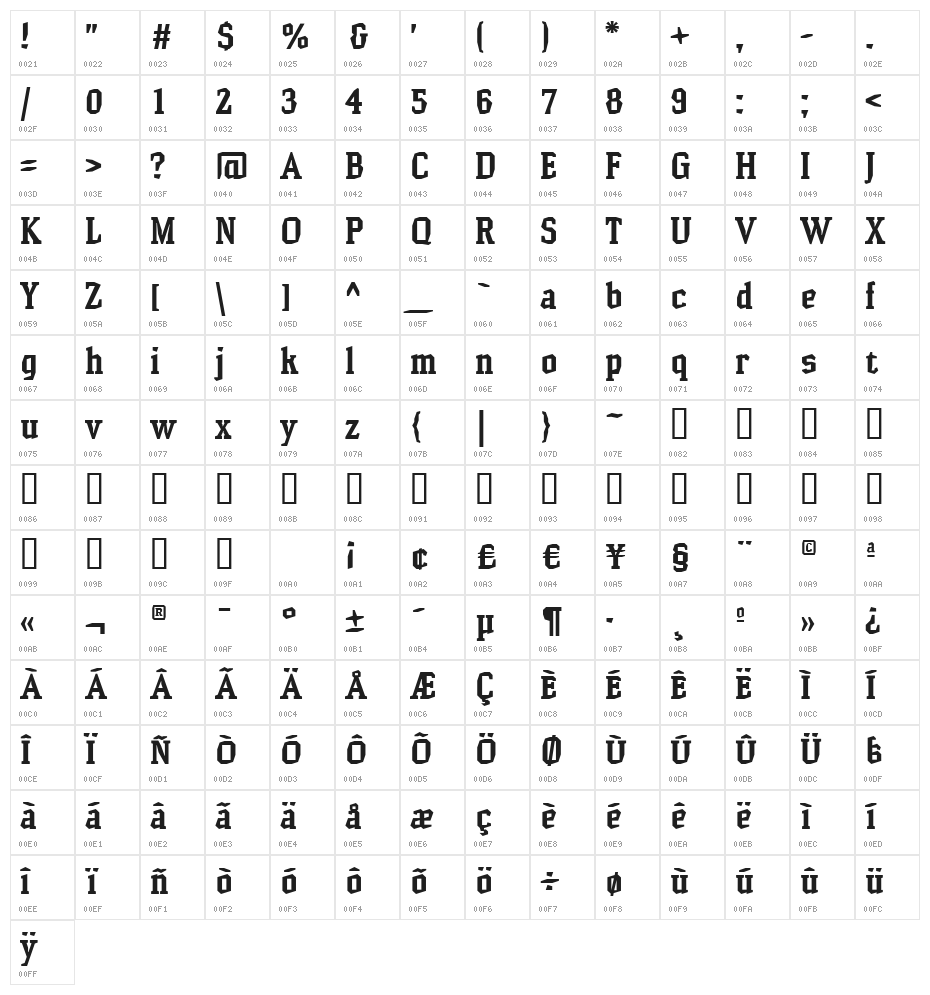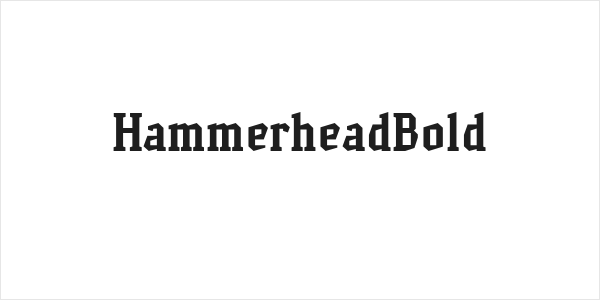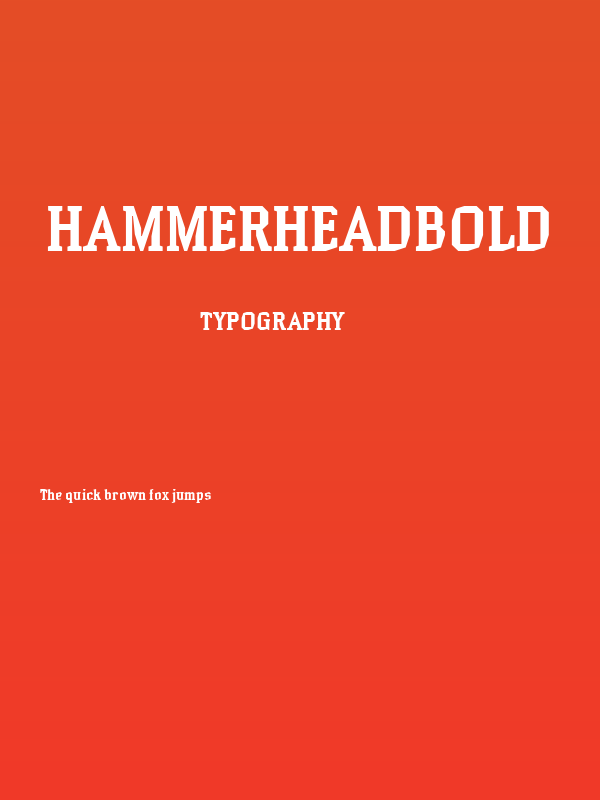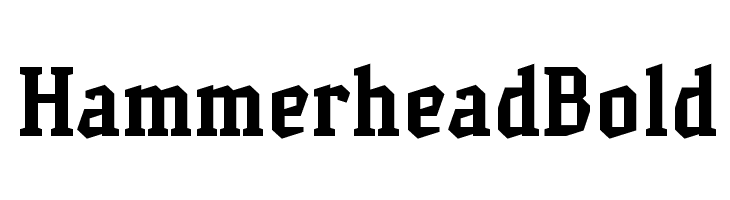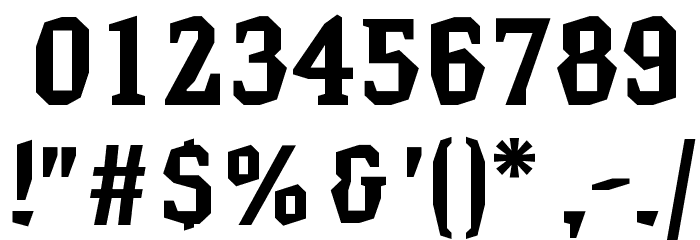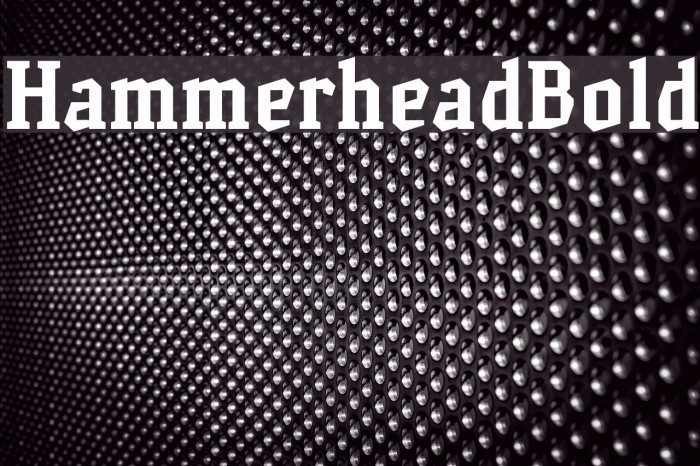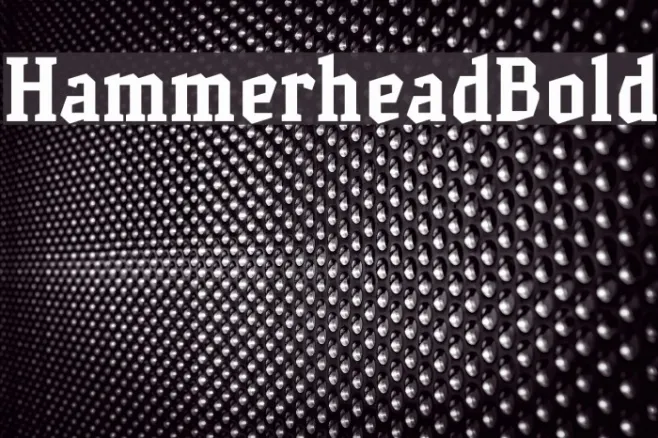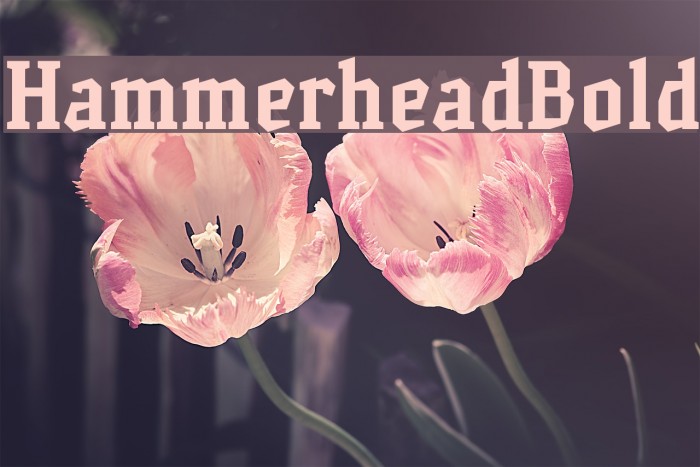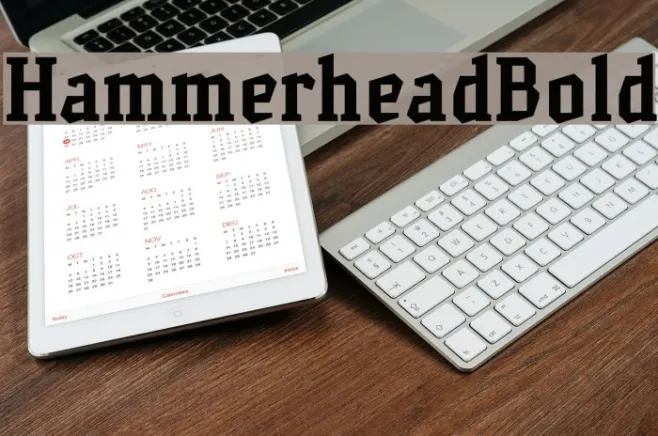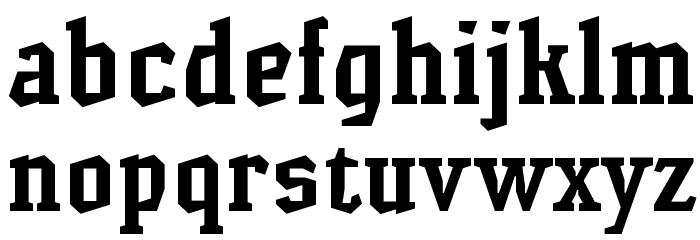
HammerheadBold Font
HammerheadBold Description
This font features a bold and robust design with strong, angular lines and a slightly condensed structure. The uppercase letters are particularly striking, with a commanding presence that makes them ideal for attention-grabbing headlines. The lowercase letters maintain the same boldness, ensuring consistency across different text sizes. The numerals are equally bold, with a uniform width that complements the overall design. Special characters are designed with the same angular style, ensuring they fit seamlessly with the rest of the font. The font's distinct style is reminiscent of vintage sports or collegiate themes, making it suitable for projects that require a strong, impactful visual element.
| Proposed Projects | Ideal for sports team branding, event posters, and retro-themed designs. |